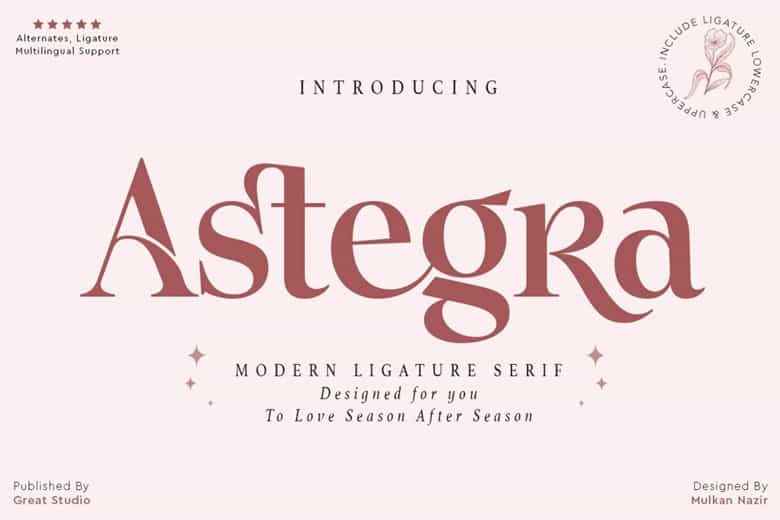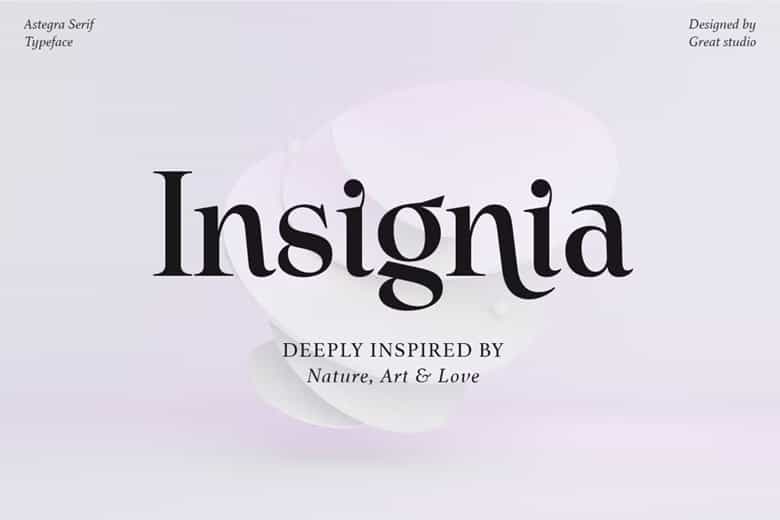
Astegra is a new serif font with a specific ligature, contrast, and light font suitable for feminine logo signs, heads & fashion, magazines, branding projects, clothing branding, packaging, headlines, advertising, T-shirts, postcards and even more.